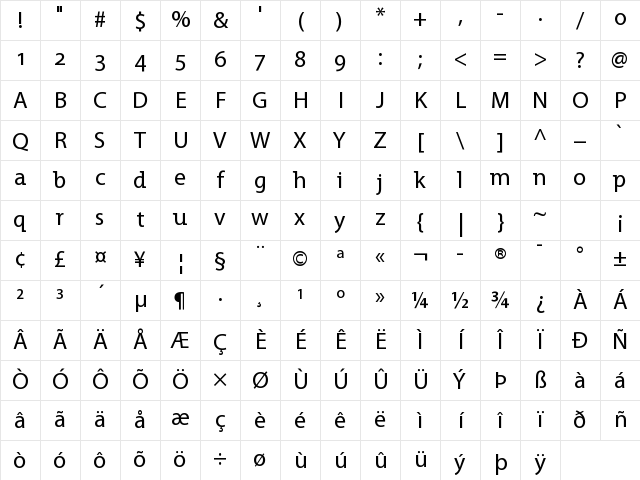
Complete Grandesign Neue Roman Regular glyph index. Displaying only characters natively supported by Grandesign Neue Roman Regular font.
Grandesign Neue Roman is a composed and adaptable typeface that performs quietly and consistently across a wide range of design contexts.